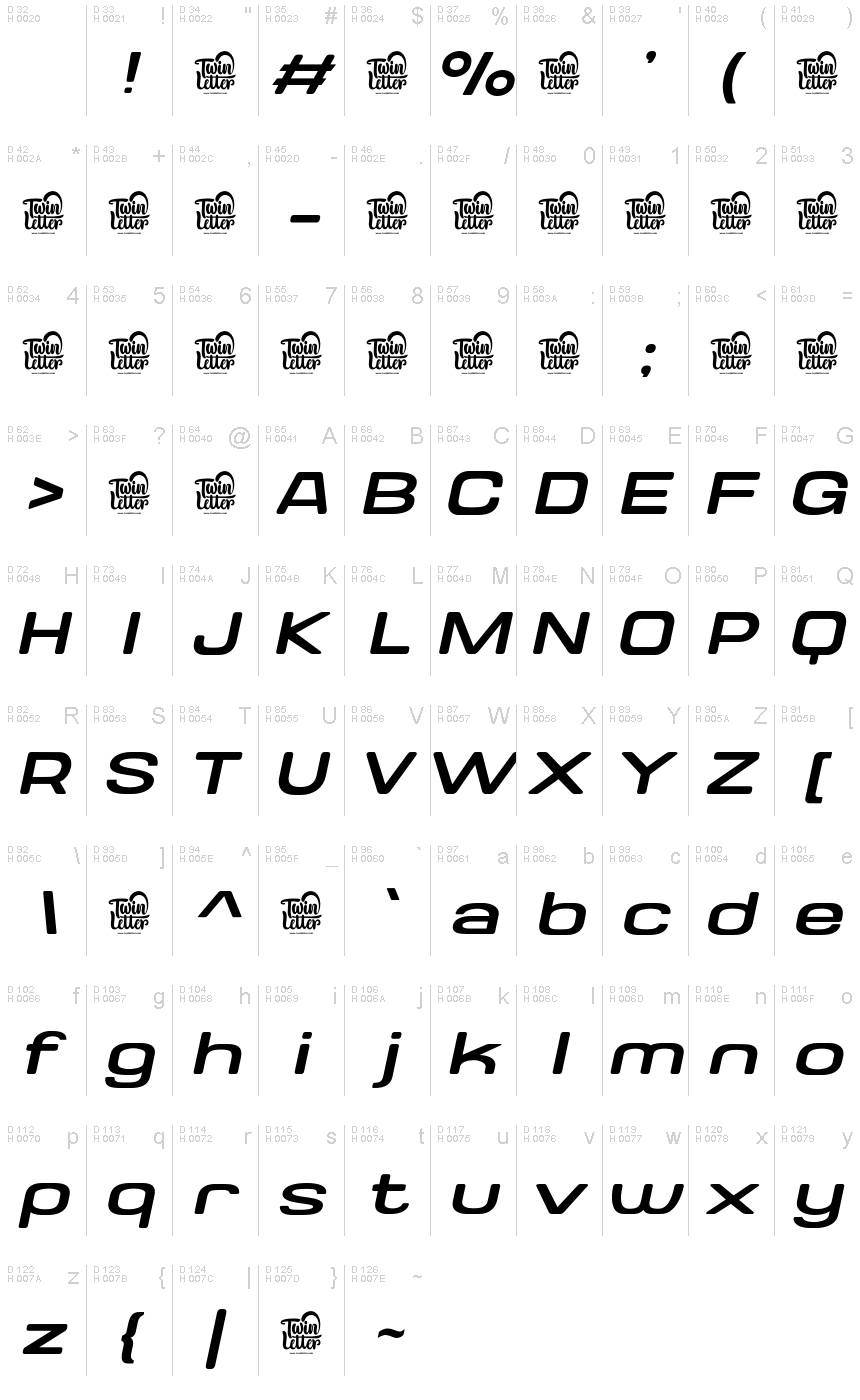
ValonikPersonalUse-LightSlant
Valonik Light Slant is a sleek member of the Valonik font family, designed by Twinletter. This sans serif treasure boasts an expansive and airy quality, inviting openness into every design. With its gentle slanted posture, it carries a dynamic yet elegant demeanor that enhances the visual harmony of text.
The font’s expansive nature offers a breath of sophistication to layouts, making it particularly suitable for luxury branding and high-end editorial work. Its understated slant adds an element of motion, perfect for creating engaging graphics and banners that catch the eye.
Part of an 18-style collection that celebrates diversity in design, Valonik Light Slant is versatile enough to adorn posters, captivate in digital media, and enrich any text with its distinct personality. Let this font transform your creative projects with its beauty and refined character.